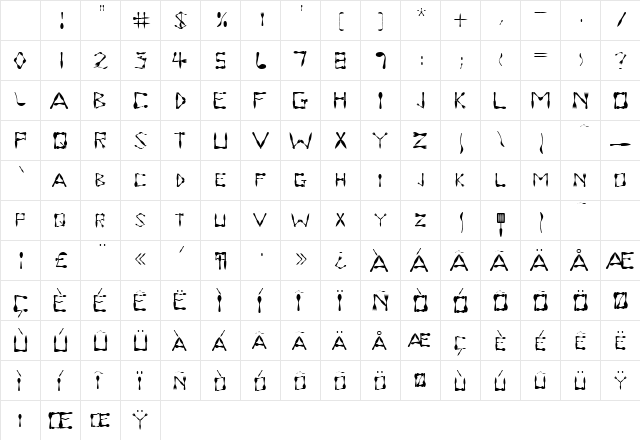
Complete Dinner Regular glyph index. Displaying only characters natively supported by Dinner Regular font.
Dinner is a composed and adaptable typeface that performs quietly and consistently across a wide range of design contexts.